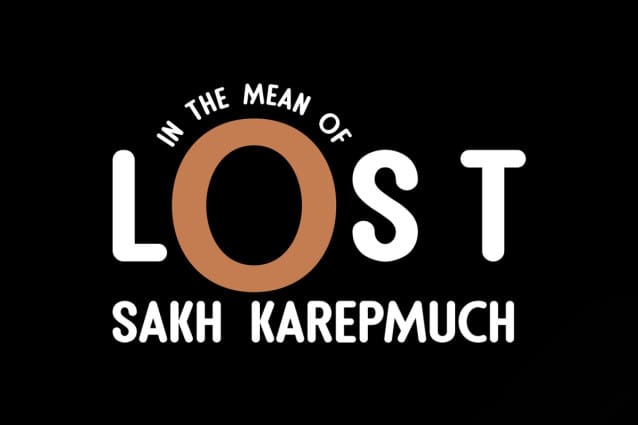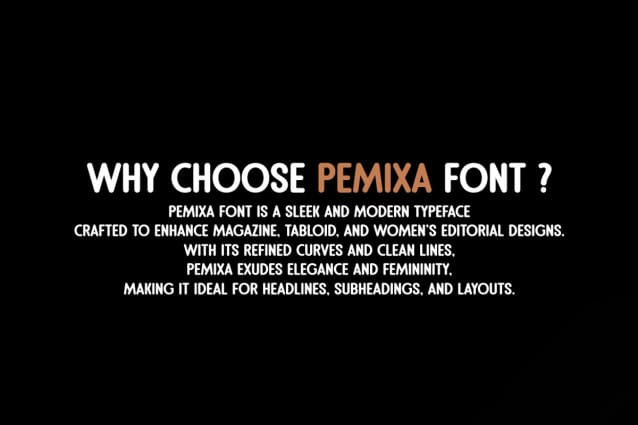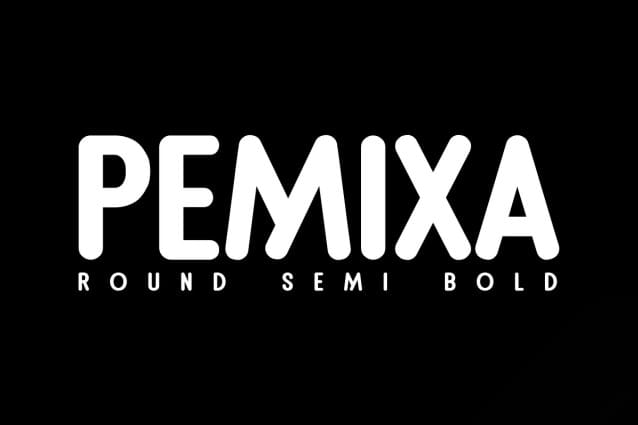
Pemixa Font
Pemixa Font is a stylish, versatile font designed for tabloid headlines, women’s magazines, and books. With a modern flair and exceptional readability, it adds elegance to your layouts.